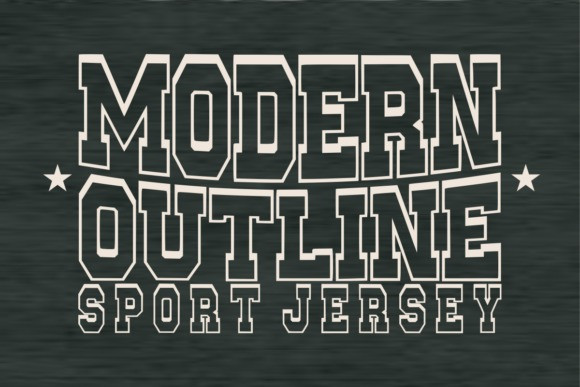
Modern Outline Font
Modern Outline Font a crisp, athletic aesthetic that prioritizes visibility and modern style.
This Modern Outline typeface is the hollow counterpart to the jersey style, featuring thick, clean borders that make it ideal for layering over complex backgrounds or high-action photography.
Use the Modern Outline font for sports broadcasting graphics, fitness app interfaces, and bold street-wear branding. The Modern Outline typeface provides a sense of speed and agility, allowing you to maintain a heavy typographic presence without overwhelming your visual composition.